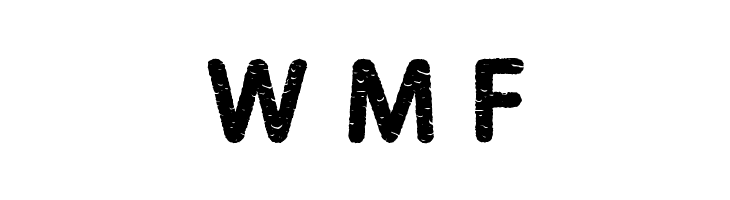
A bold, decorative font with a vintage, three-dimensional style.
A bold, distressed font with a grunge effect for impactful designs.
A bold, textured font with a playful and rugged appearance.
A bold, geometric font with strong, angular lines and consistent stroke widths.
A bold, italicized font with medium contrast and a modern, dynamic style.
A bold, jagged font with an eerie, horror-themed design.
A bold, abstract font with organic, fluid shapes and a playful, chaotic style.
An abstract, artistic font with bold, organic shapes and a dynamic flow.
A bold, modern font with rounded edges and a slightly condensed form.
A bold, rounded font with a modern and impactful style.
A modern, slightly italicized font with smooth curves and consistent stroke width.
A bold, geometric outline font with a futuristic and dynamic style.
A lively and elegant handwritten script font with bold uppercase and smooth lowercase letters.
A playful, handwritten font with tall, narrow letters and smooth strokes.
A bold, italic font with a dynamic and modern style.
A bold, semi-italic font with angular lines and a dynamic style.
A bold, condensed, and italicized font with a modern, dynamic style.
A bold, italic, and dynamic font with a modern geometric style.
A bold, left-leaning font with wide, angular characters.
A bold, geometric font with a modern and clean design.
A modern, playful font with geometric and organic elements.
A bold, modern font with geometric and playful elements.
A sleek, modern sans-serif font with light weight and oblique style.
A bold, flowing script font with elegant curves and a cohesive style.